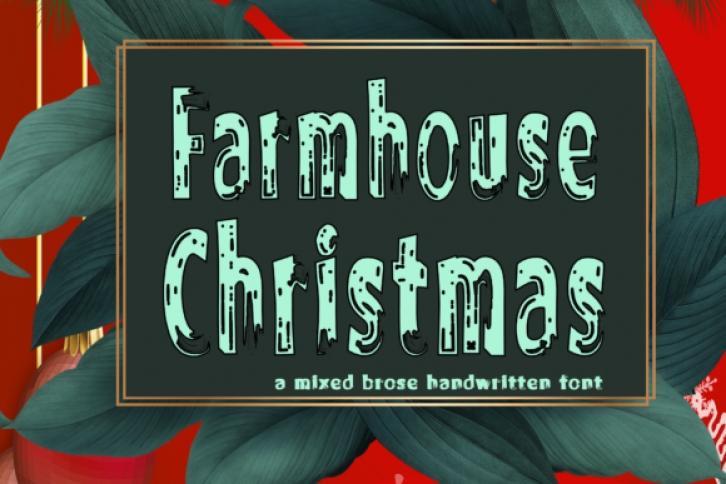
Farmhouse Christmas is a bold and thick lettered display font. Natural and adaptable, this font works great on each of your design ideas, be it branding, product packaging, invitation, quote, t-shirt, label, poster or logo.